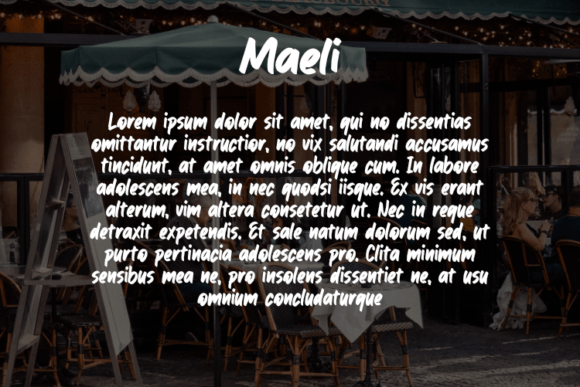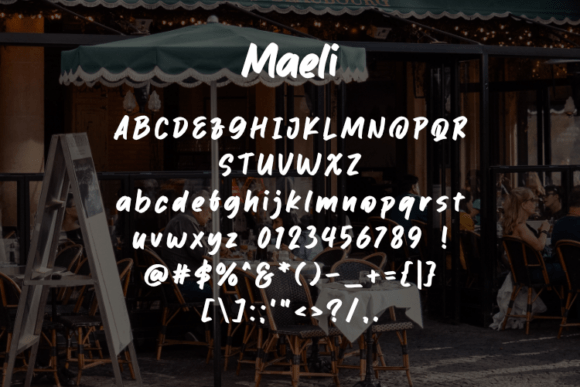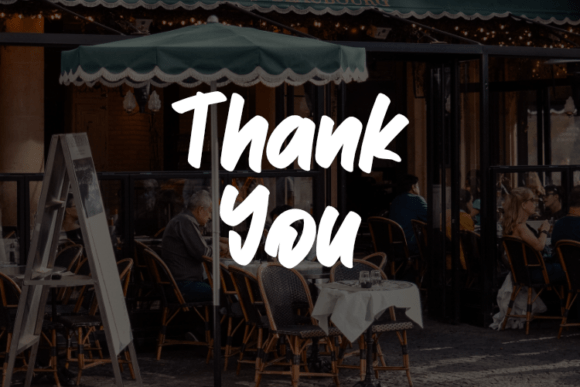
Introduction to Maeli Font
Remember that moment when you finally found the perfect design element for your creative project? The one that takes it from ordinary to extraordinary? For designers, this feeling is what drives us to continually push the boundaries of our craft. And for those working in the clothing and product design space, the search for the ideal font can be a game-changer.
Enter the Maeli Font, a versatile and high-quality design resource that’s been specifically curated for the demands of the industry. Whether you’re working on a t-shirt design or crafting a label for your latest product, Maeli Font is the perfect addition to your toolkit. Its seamless integration with popular design software and availability in both OTF and TTF file formats make it a valuable asset for designers of all levels.
Key Features of Maeli Font
- High-quality design resource for creative projects, ideal for use on a transparent background
- Features a unique, modern design aesthetic, making it perfect for contemporary creative projects
- High-resolution font files, ensuring crisp and clear text display, even at large sizes
- Designed to be highly legible, with clear and distinct letterforms that are easy to read
Honest Review: Maeli Font
I recently had the chance to work with the Maeli Font, and I must say it’s been a delightful experience. This font has a unique, hand-drawn style that makes it perfect for creative projects that require a touch of personality.
- ✨ High-quality design: The Maeli Font has a crisp, clean look that makes it perfect for both digital and print projects.
- ✨ Versatility: This font can be used for a wide range of creative projects, from logos to typography-based art.
One of the standout features of the Maeli Font is its transparent background, which makes it easy to use in creative projects where you need to layer multiple elements.
- ⚠️ Limited character set: The Maeli Font has a relatively limited character set, which may make it less suitable for longer blocks of text.
- ⚠️ Not ideal for small text: Due to its hand-drawn style, the Maeli Font may not be the best choice for small text or intricate typography.
Overall, I’m really impressed with the Maeli Font, and I think it’s a valuable addition to any designer’s toolkit. Its unique style and high-quality design make it perfect for creative projects, and the fact that it’s available for free download is a major bonus.
To get the most out of Maeli Font, try using it in combination with other design elements, such as graphics and textures. Experiment with different font sizes, colors, and styles to create unique and eye-catching designs. You can also use the font in conjunction with a transparent background to create a sense of depth and dimension.
Maeli Font is suitable for a wide range of creative projects, including branding, marketing materials, and digital art. You can use it to create logos, business cards, brochures, and even social media graphics. The font’s high-quality design and versatility make it an ideal choice for designers and non-designers alike.
Is the Maeli Font suitable for a creative project with a transparent background?
Yes, the Maeli Font is designed to work seamlessly with transparent backgrounds, making it an ideal choice for creative projects that require a high level of visual sophistication. The font’s transparent background allows for a clean and modern look, perfect for designs that need to stand out.